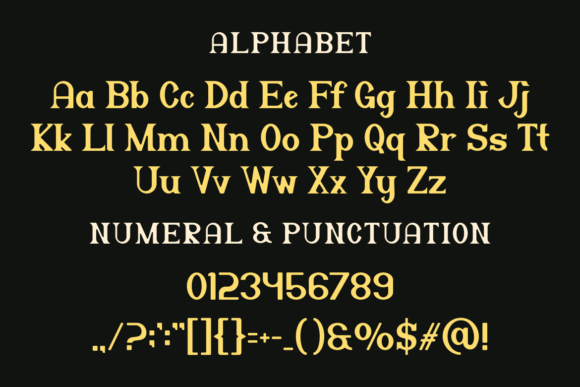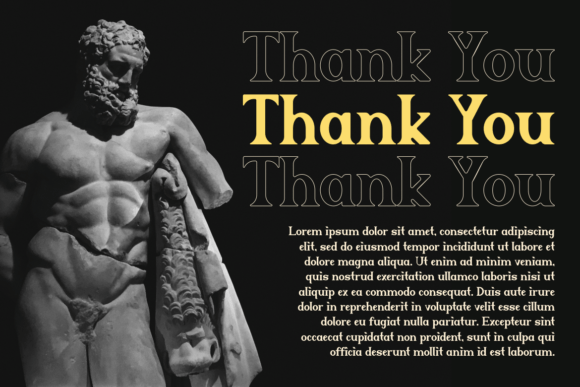
I still remember the frustration of working on a project, hours pouring into the design, and then hitting a roadblock – finding the perfect font. It was for a branding project, and I needed something that would capture the essence of the client’s business: elegant, yet bold; classic, yet modern. I scoured through font libraries, but nothing seemed quite right. That was until I stumbled upon Archaic Display, a game-changing font that has since become a staple in my design toolkit.
Archaic Display: A Unique Gem
Archaic Display is an incredibly unique, stylish, and versatile display font. Add it confidently to your creative projects and you will love the results! This font has a way of elevating any design, from logos and titles to headings and captions. Its distinct character makes it perfect for designers, crafters, and creative hobbyists looking to add a touch of sophistication to their work.
Here’s what I love about Archaic Display:
• ✨ Unique character: Archaic Display has a distinct style that sets it apart from other fonts.
• ✅ Versatility: It can be used for a wide range of projects, from elegant branding to bold headings.
• 💡 Inspires creativity: The font’s unique features encourage experimentation and creativity.
And here are some minor quirks to consider:
• 🤔 Glyph overload: With so many glyphs and stylistic alternates, it can be overwhelming to navigate.
• ⚠️ Not suitable for body text: Archaic Display is best used for display purposes, as it may be too ornate for longer blocks of text.
The Designer Inspiration Behind Archaic Display
Archaic Display was inspired by ancient typography and the ornate details of historical manuscripts. Its designer sought to create a font that would evoke a sense of timelessness and sophistication, while still feeling modern and fresh. The result is a font that is both nostalgic and forward-thinking.
What type of projects is Archaic Display best suited for? Archaic Display is ideal for display purposes, such as logos, titles, headings, and captions. It’s perfect for branding, advertising, and editorial design.
Can I use Archaic Display for body text? While Archaic Display is stunning for display purposes, it’s not recommended for body text due to its ornate nature. For longer blocks of text, a clearer font is usually more readable.
Is Archaic Display available in different weights or styles? Archaic Display comes in a range of weights and styles, allowing you to experiment with different looks and feels. Check the font library for specific options.